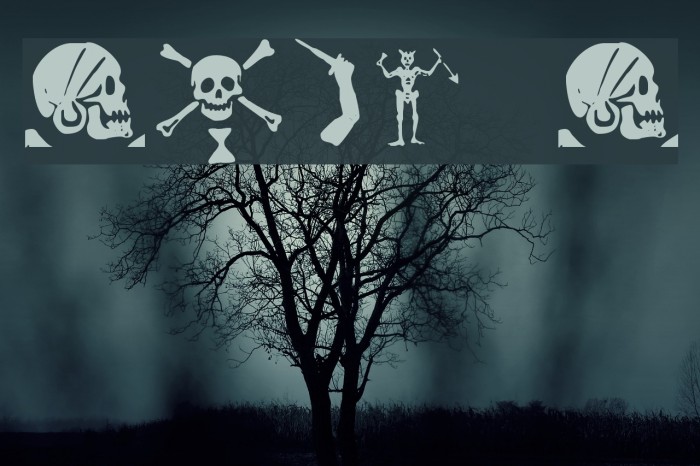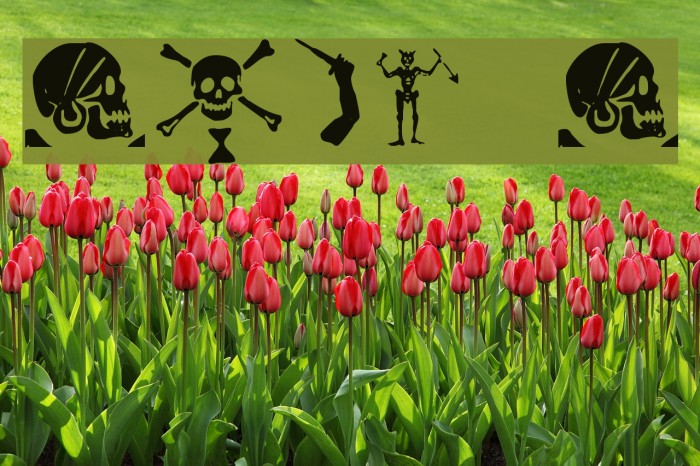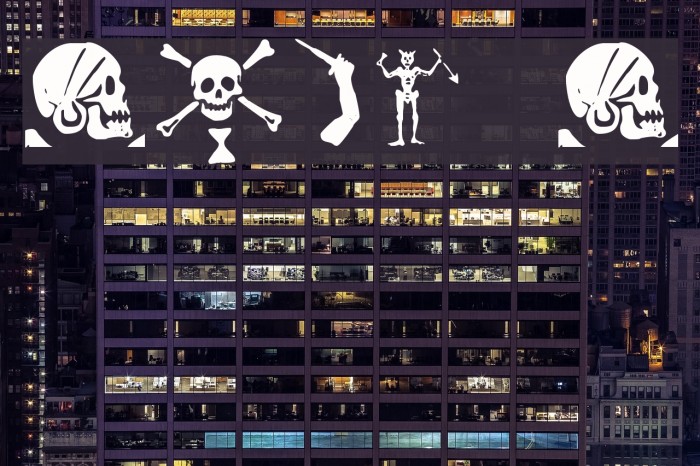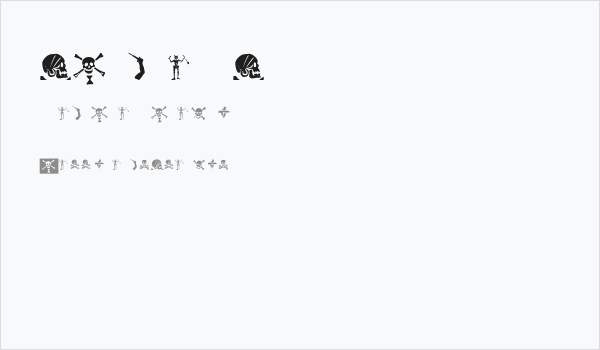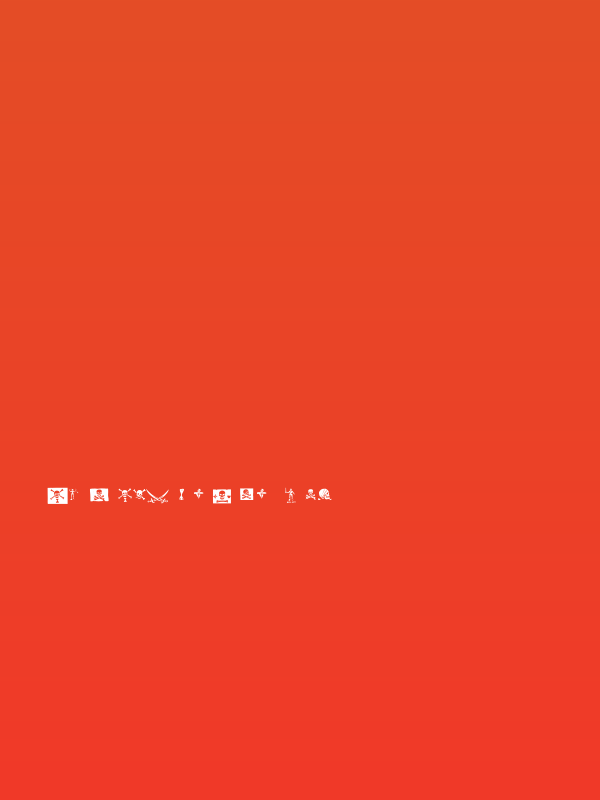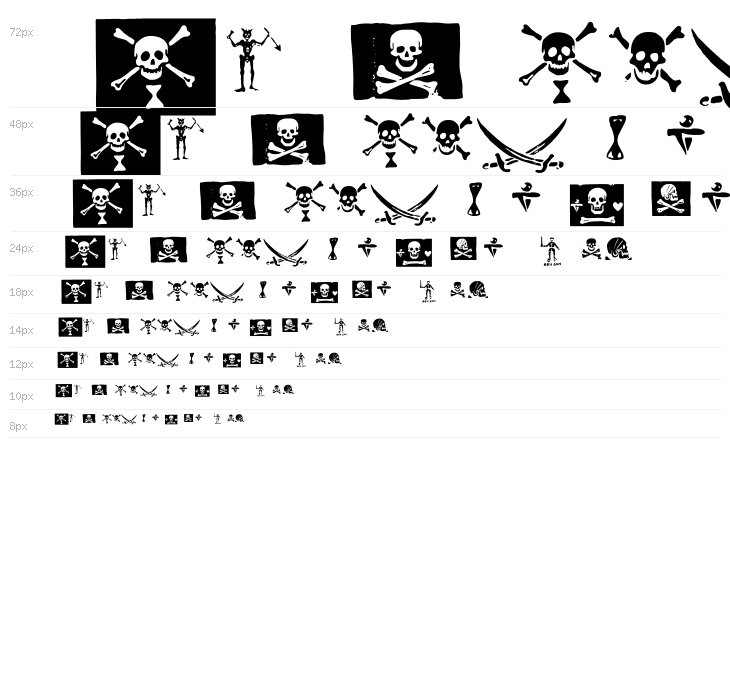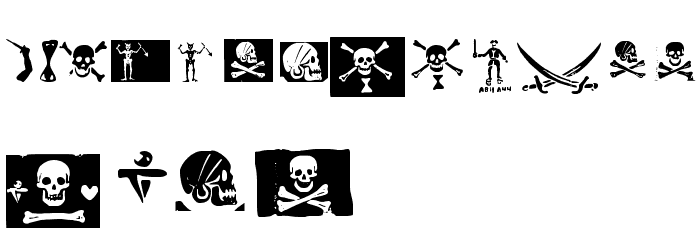
pirates pw Font
pirates pw Description
This font is a decorative collection of pirate-themed symbols and icons. Each character is a unique illustration featuring classic pirate imagery such as skulls, crossbones, swords, and pirate hats. The designs are bold and striking, with a high contrast between the black and white elements, making them stand out vividly. The style is playful yet menacing, capturing the adventurous and rebellious spirit associated with pirates. These symbols are perfect for adding a touch of swashbuckling flair to any project.
| Use Case | Logos, Posters, Invitations |
| Proposed Projects | Ideal for themed parties, treasure hunt invitations, pirate-themed events, or any creative project needing a nautical or adventurous touch. |